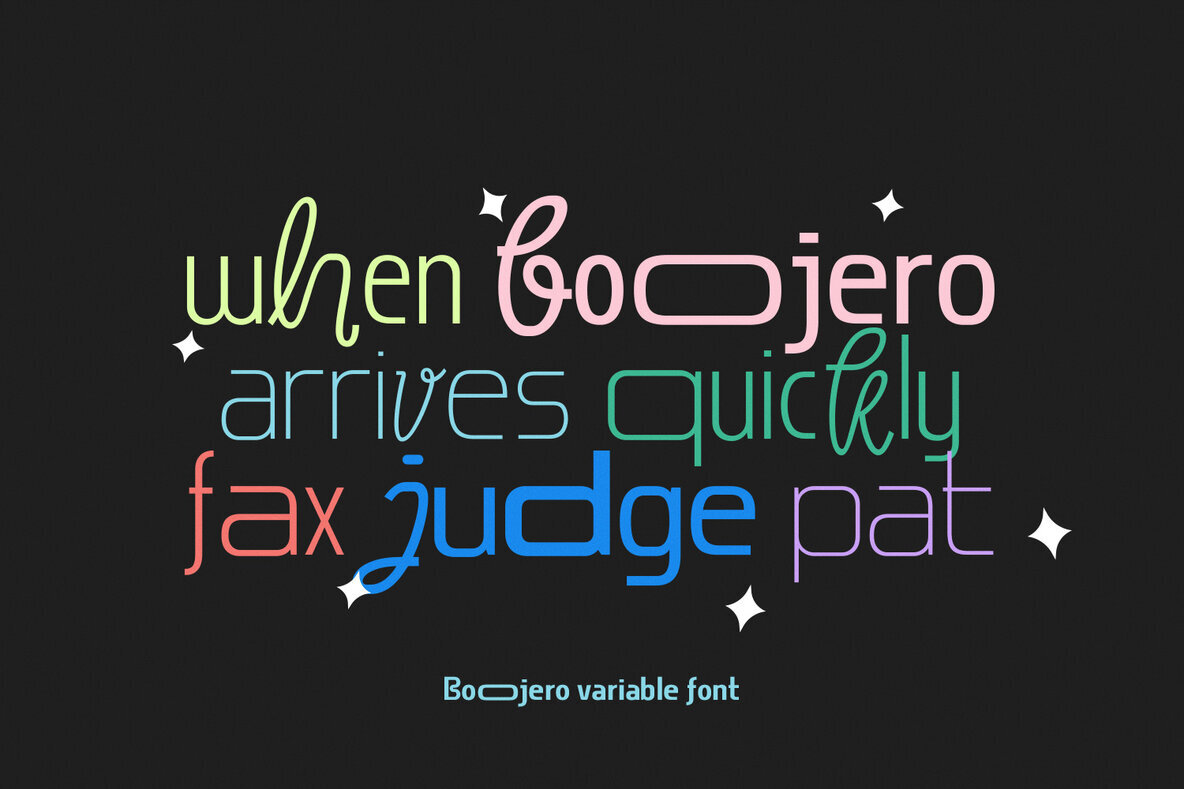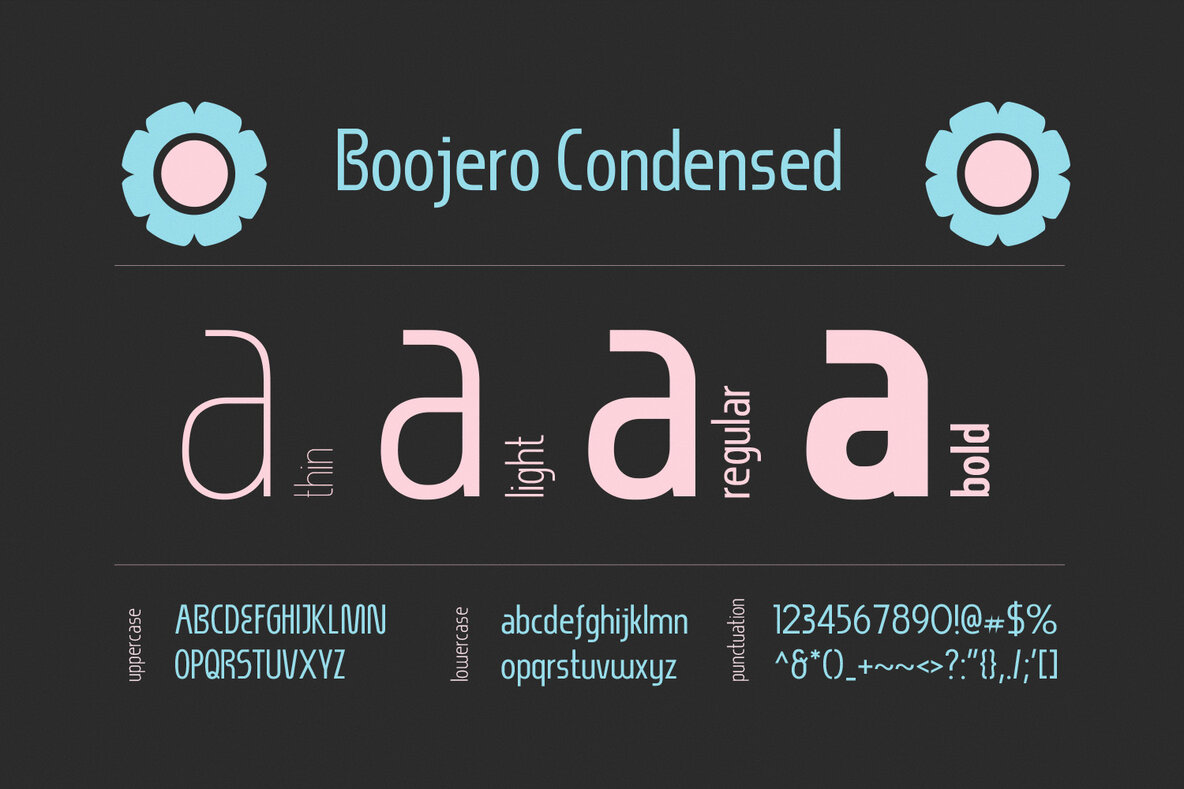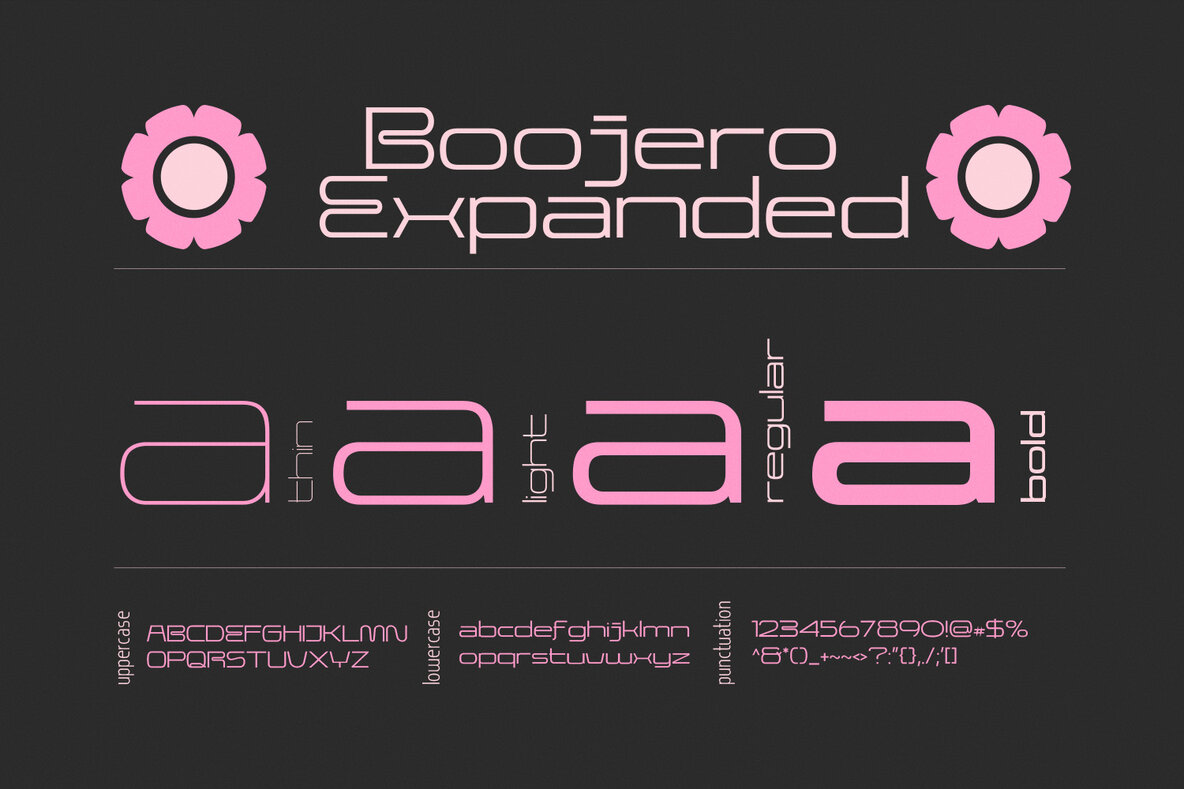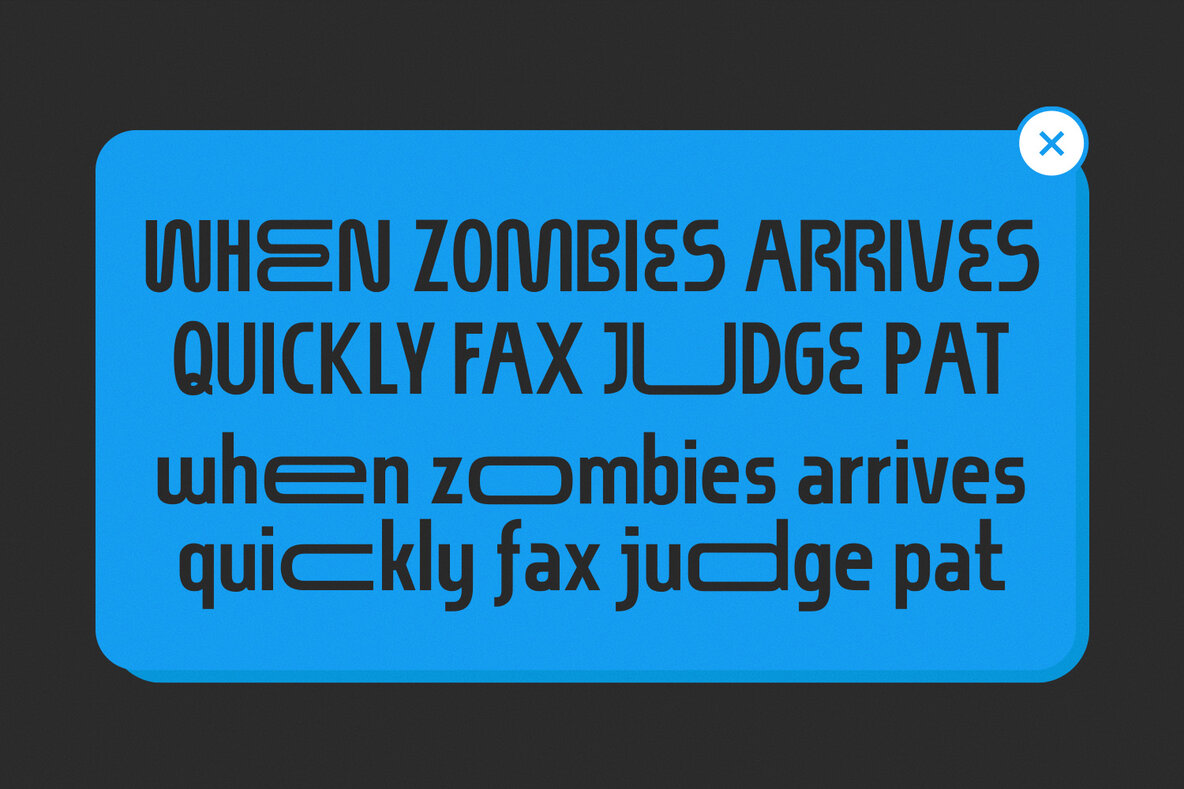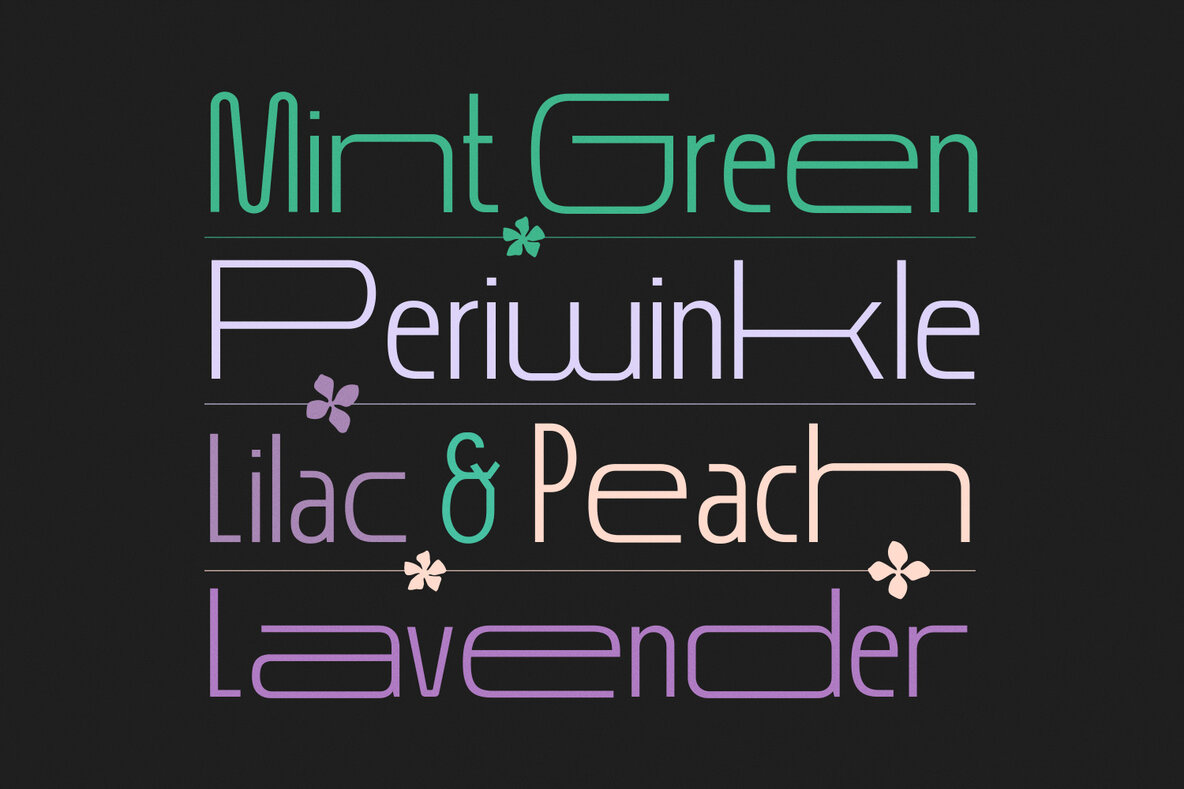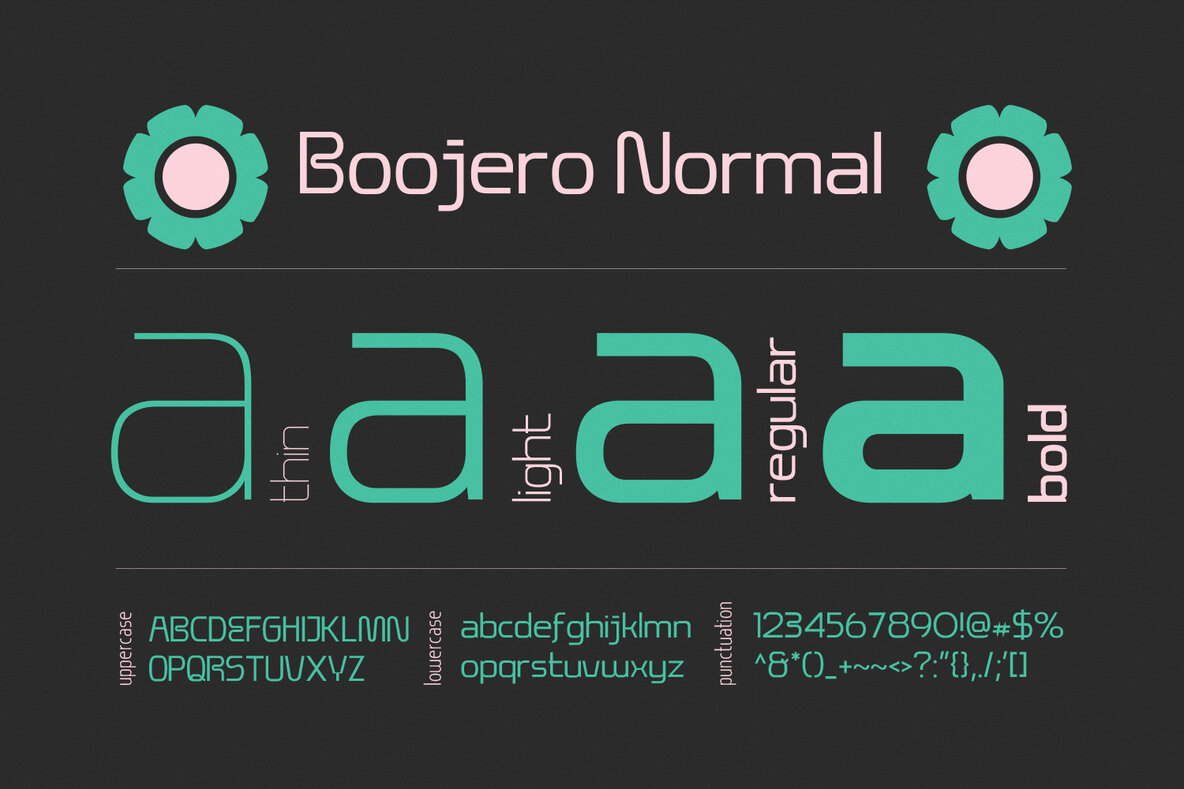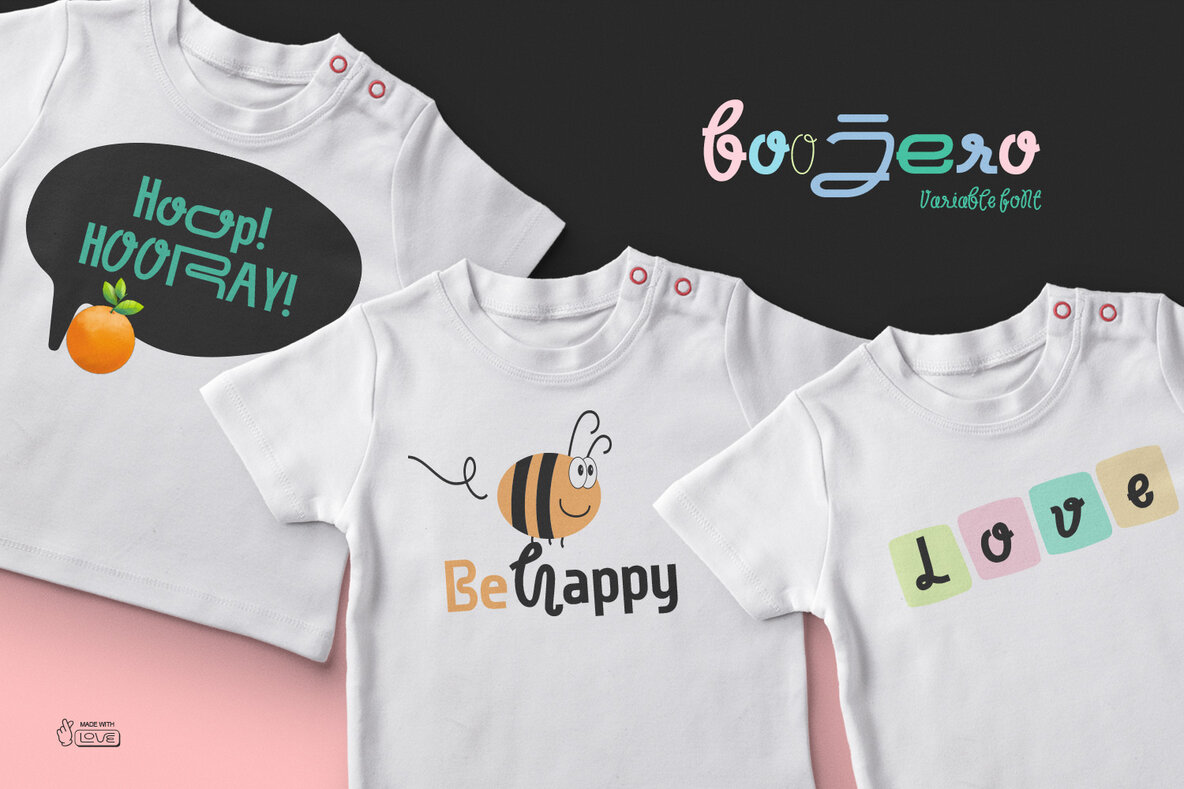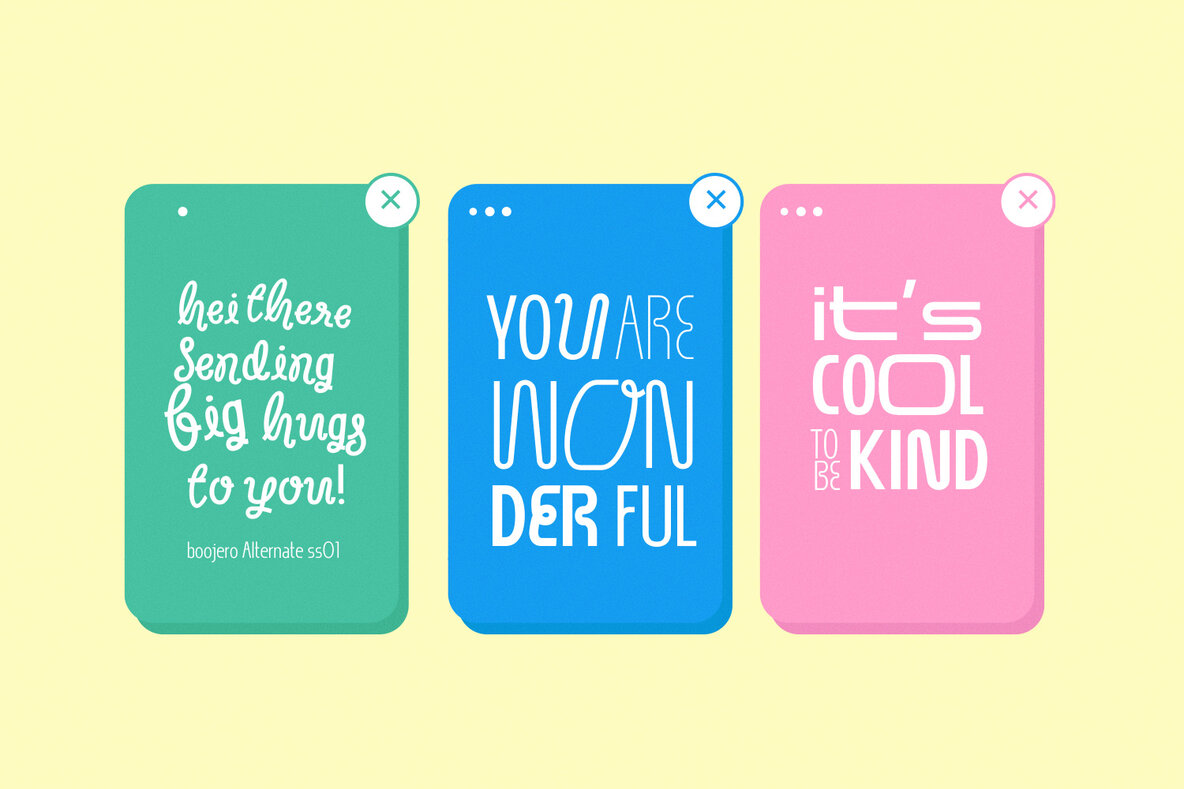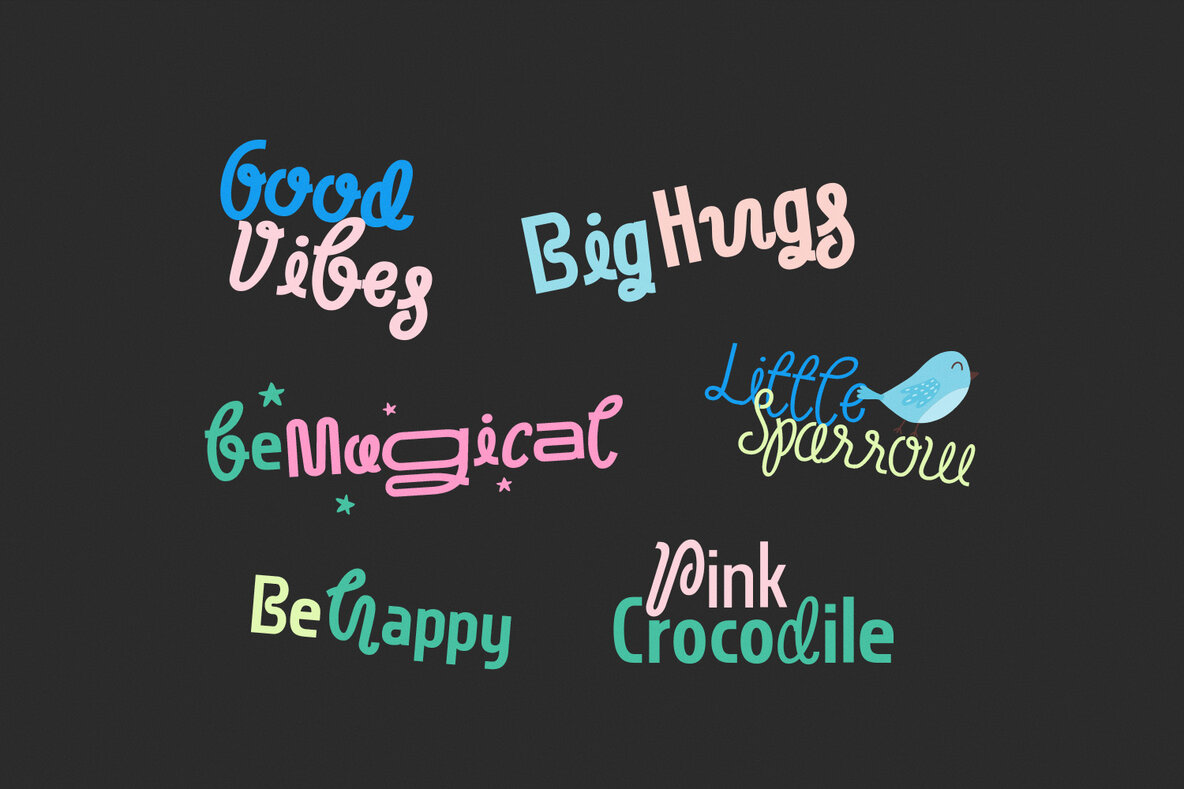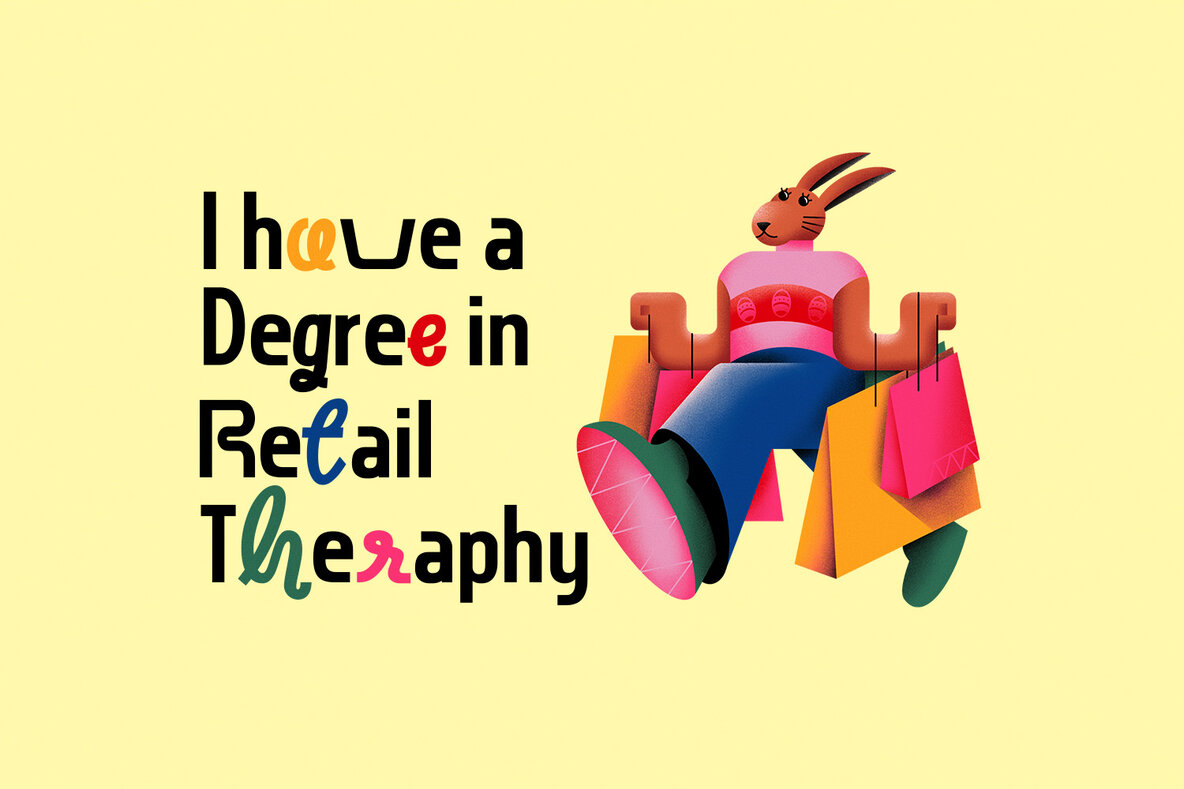
Boojero Font
Boojero is a relaxed and friendly sans serif typeface that exudes fun. It comes in three distinct widths: Condensed, Normal, and Expanded, each available in four styles. Boojero also includes a hand-drawn script variation found in its stylistic alternates. As a variable font, Boojero offers numerous width and weight options through its two slider axes, allowing for extensive customization. This typeface is ideal for adding a fresh, fun vibe to kids' stationery, book covers, titles, and more.Boojero: A Cheerful Sans Serif with Versatile Widths